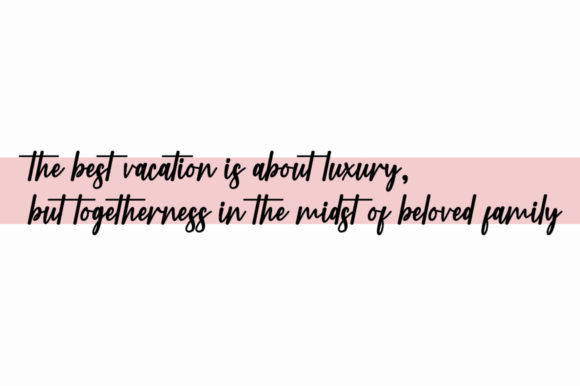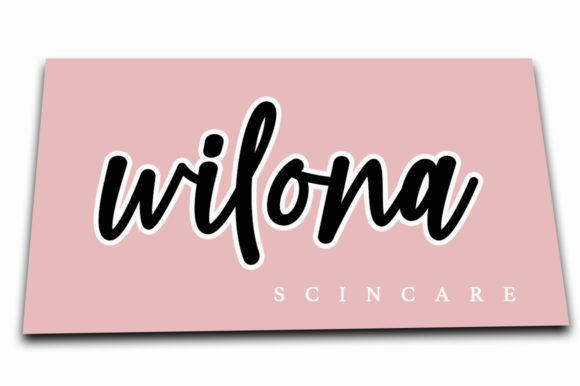
Melica Font
db-ku.com - Script & Handwritten -- Melica feels equally charming and relaxed. It looks stunning on wedding invitations, thank you cards, quotes, greeting cards, logos, business cards and every other design which needs a handwritten touch. This font is PUA encoded which means you can access all of the glyphs and swashes with ease!